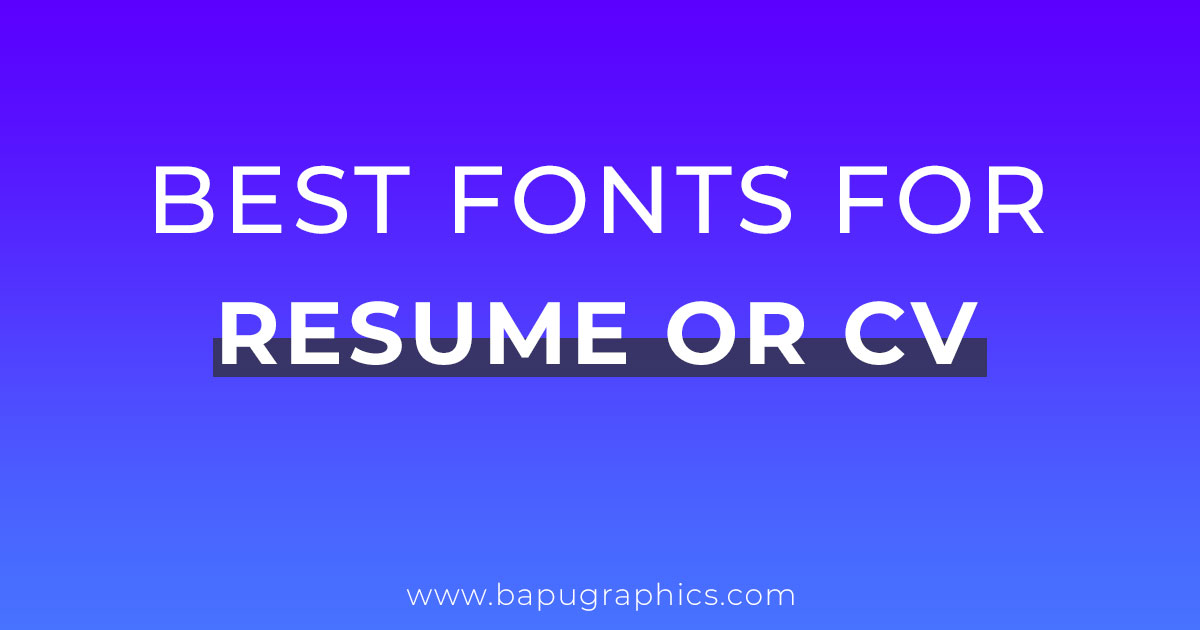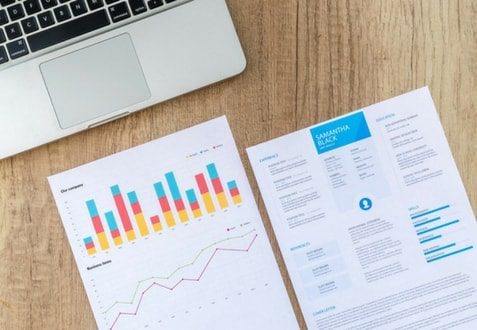
Font selection is an important part of your resume because it sets a tone for your whole document. We have taken all 9 of the best resume fonts mentioned above and provided samples of what these fonts look like on a resume.
Best cv font 2018. In fact well bet you wouldnt even bother to read them. When it comes to official paperwork appearancespecifically the fontcan go a long way in projecting significance. The below mentioned checklist listing a number of factors is the ultimate resume checklist and should be kept handy to pick a good resume font size from the list of the best resume fonts. One of the key design areas that you need to get right is your font. You need to be very explicit while choosing the best resume font from of the list of best resume fonts 2020. The best resume font type to use.
The optimal font size for your resume is anything between 10 and 12 points. Basic bookprint fonts like arial verdana calibri and times new roman work well. Use the resume font key directly below for reference. 8 best fonts to use on a resume. Resume font key 1. Each sample follows a precise uniformity which allows you to see the font in its standard form bold and bold italic.
Good luck with the job search. Regardless of whether the font you choose is in the serif or sans serif font family the following fonts are considered some of the best to use according to resume and career experts. Because it is best practice to keep your resume to one or two pages begin with size 10 font and experiment with sizing up if you think you have space. Your cv needs to make a big impression on employers if you want to receive an invitation to interview. But what is the best font for your cv. Deciding on the best font for resume 2020 depends on certain factors.
Thats why its important to determine the best font for resume readability. Depending on the particular font but no smaller than that is standard. This goes for resume font size too. When in doubt just keep it simple. You can use different fonts for the body and the headings but you dont want to use more than two. However if you are applying to a position in graphic design or advertising where resume layout and design might be part of your assessment employers might be open to alternative fonts.
The size you choose will be largely determined by how the font size impacts your resume layout.